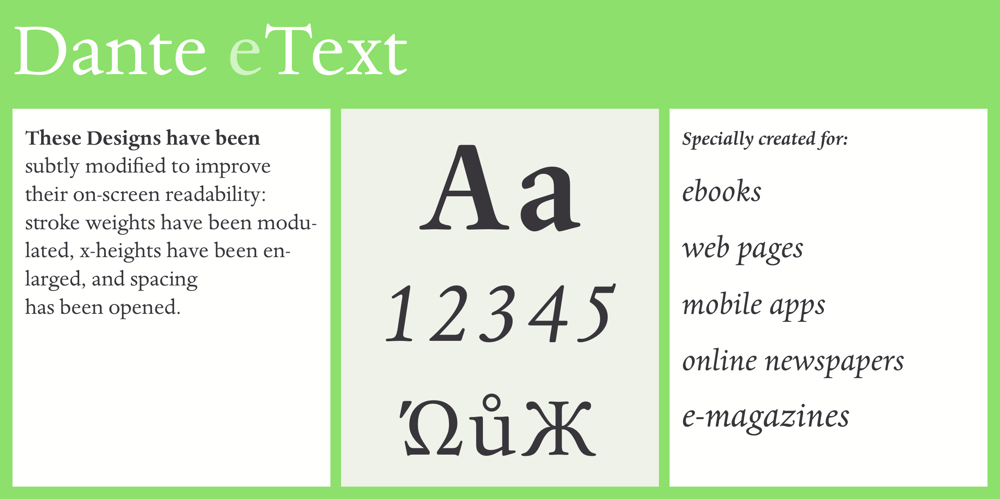
Dante eText
Dante eText font
Dante eText Font Family was designed by Giovanni Mardersteig and published by Monotype. Dante eText contains 4 styles and family package options. A clear and enjoyable reading experience hinges on the legibility of text copy, especially when reading on screen. This is why Monotype has developed the eText collection of fonts specifically tailored for the text-heavy display environments of e-readers, tablets, mobile devices, and the Web.